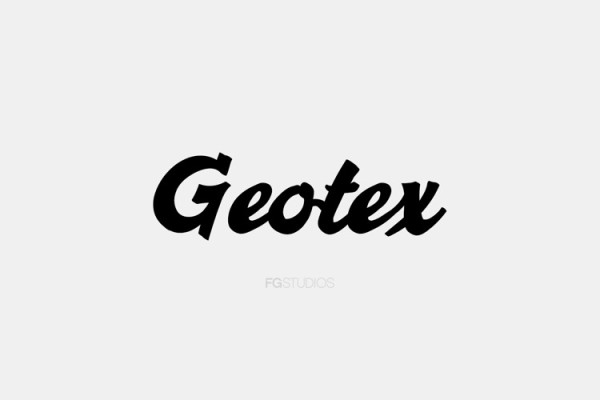
Geotex Script Font
Geotex Script Font, a luxury script that has its own unique style & modern look. This typeface is perfect for an elegant & luxury logo, book or movie title design, fashion brand, magazine, clothes, lettering, quotes, and so much more.